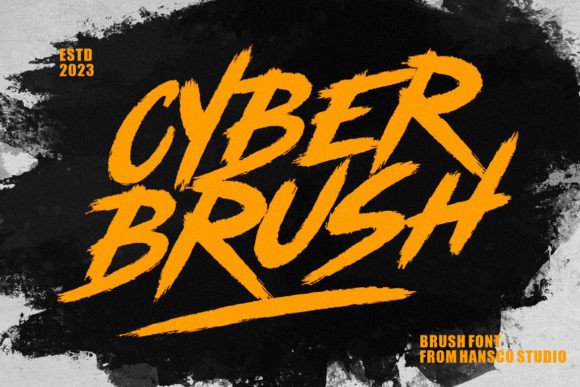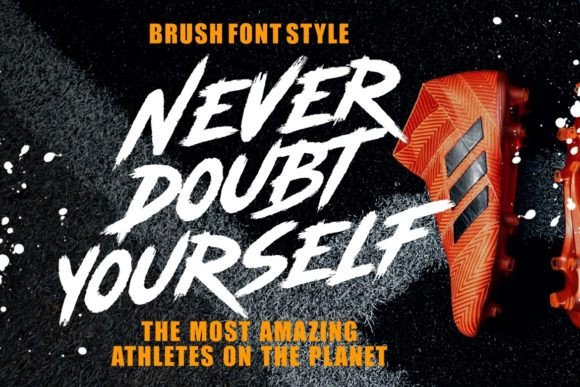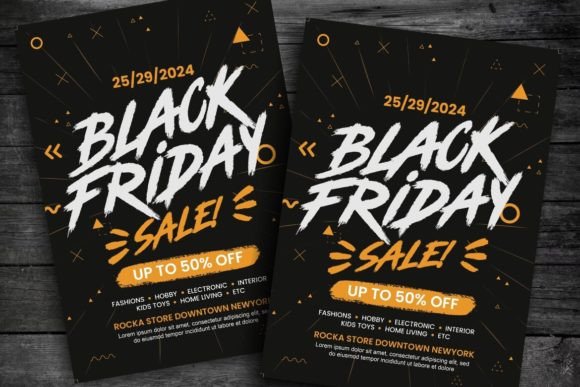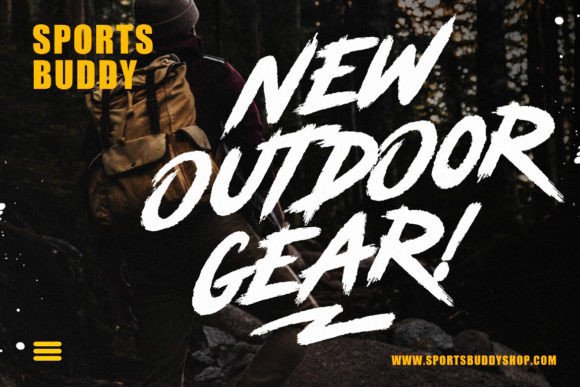
Welcome to the world of Cyber Brush Font, a typeface that will inspire your next great project. Cyber Brush is a handwritten font with a bold and rough style in a dry brush texture. This texture is very detailed. Very suitable for logos, product branding, printable templates, posters, flyers, shirts, or for text overlay to any background image. Acorn Brush font comes in All caps, with punctuation, numerals and also has multilingual support.
Cyber Brush excels in applications demanding a strong, individualistic presence. Headlines, short impactful phrases, and logos benefit most from its bold texture. It’s ideal for branding projects targeting a youthful, rebellious, or edgy market, and works well on posters and packaging where its raw energy can be showcased effectively. Avoid using it for body text or UI elements; its highly textured nature compromises readability in smaller sizes or extended use.
Pairing Cyber Brush with a clean sans-serif like Montserrat or a geometric font such as Futura creates a visually striking contrast, allowing the hand-drawn texture to stand out. For a slightly softer contrast, consider a neutral serif like Lato. These pairings provide readability and sophistication, balancing Cyber Brush’s raw energy.
The font’s core personality is bold and rebellious, conveying a sense of unconventionality and raw creativity. It projects a modern, slightly grunge aesthetic, making it unsuitable for projects requiring elegance or refinement.